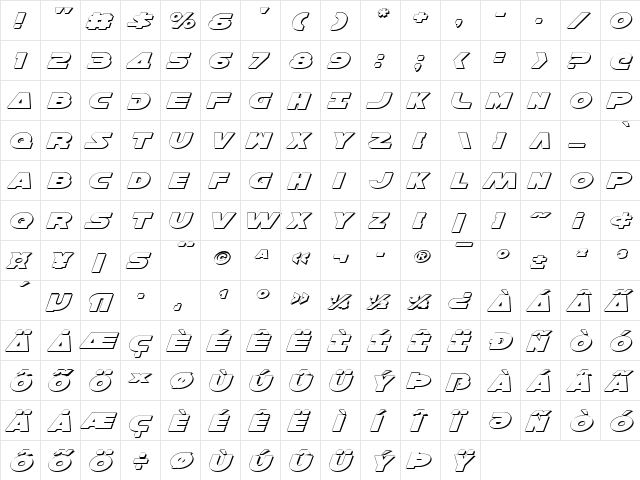
Han Solo Exp Shadow Italic Exp Shadow Italic
| Designer | Dan Zadorozny |
Design Context for Han Solo Exp Shadow Italic Typeface
Han Solo Exp Shadow Italic brings ornamental detail and strong personality to headlines and identities, where visual impact matters more than quiet functionality. The dynamic lean of this cut emphasises speed and emphasis in any layout.
Font Pairing: Pair with a clean neutral sans-serif for body copy to let Han Solo Exp Shadow Italic's character lead without overwhelming the composition.
Pro Tip: Use Han Solo Exp Shadow Italic exclusively at display sizes — it was designed to be seen, not read at length. Let a neutral companion handle body copy.